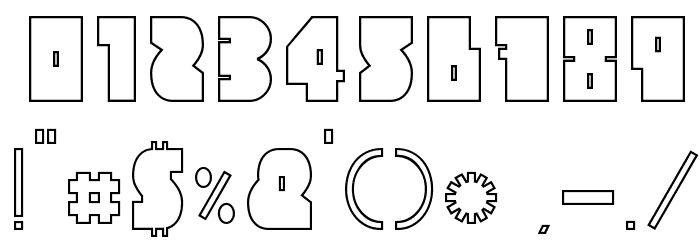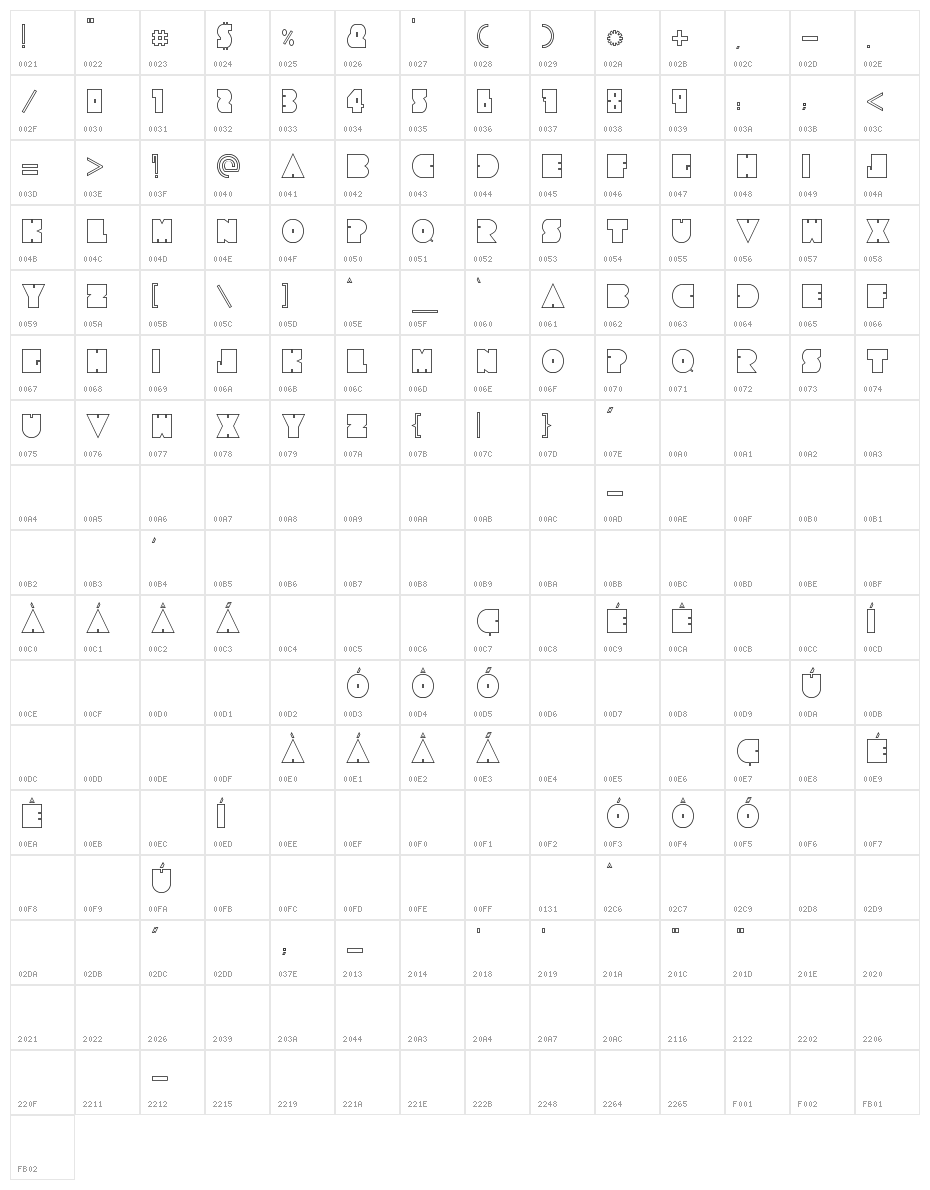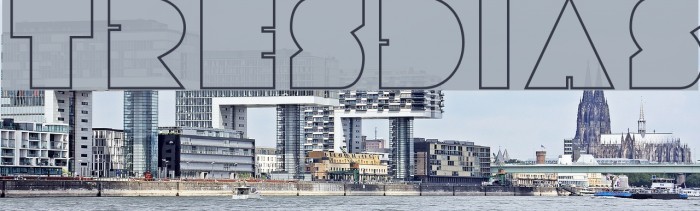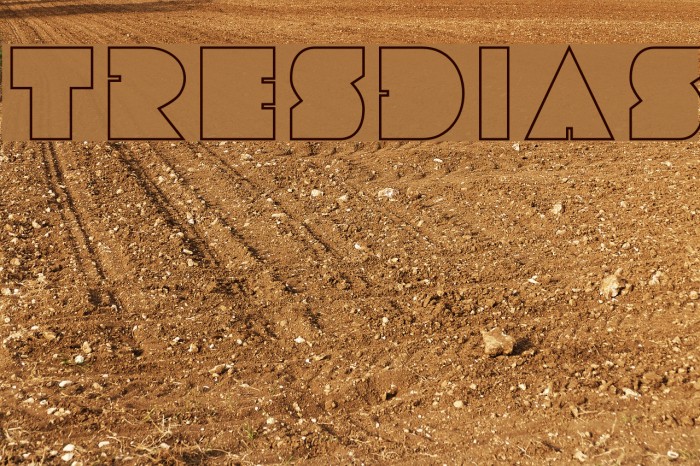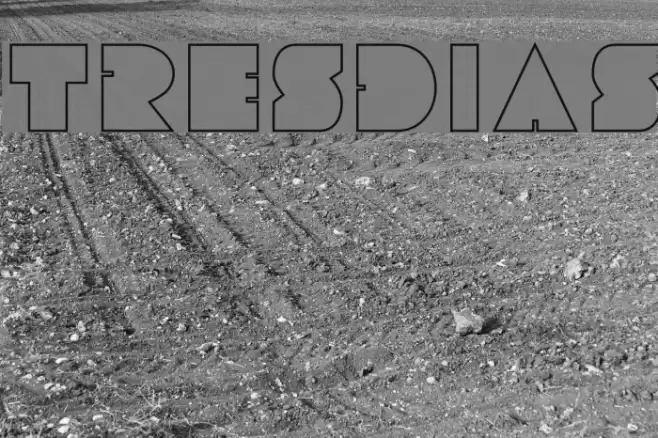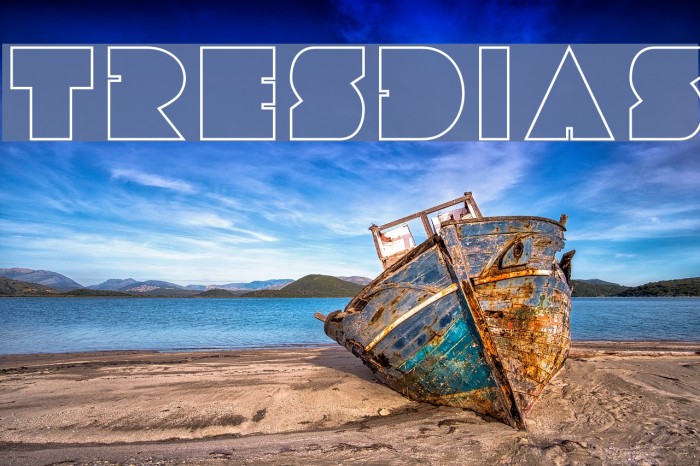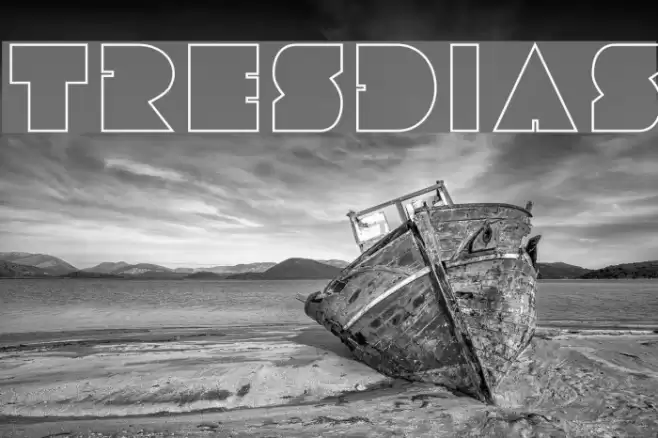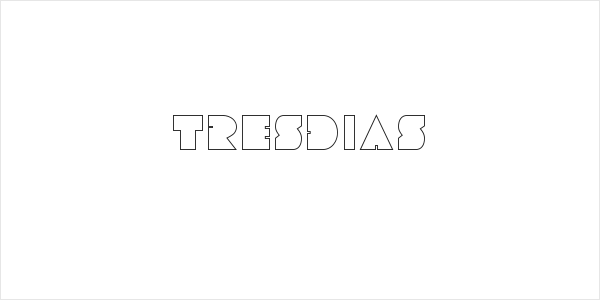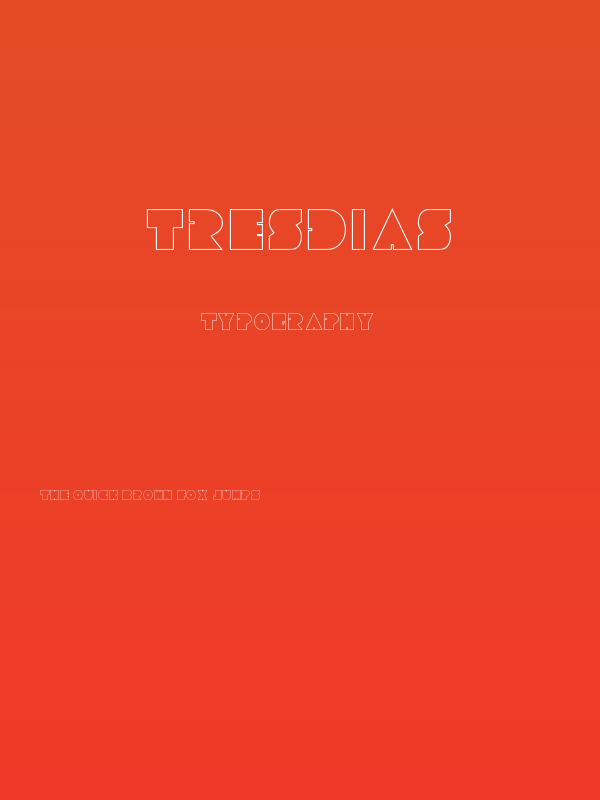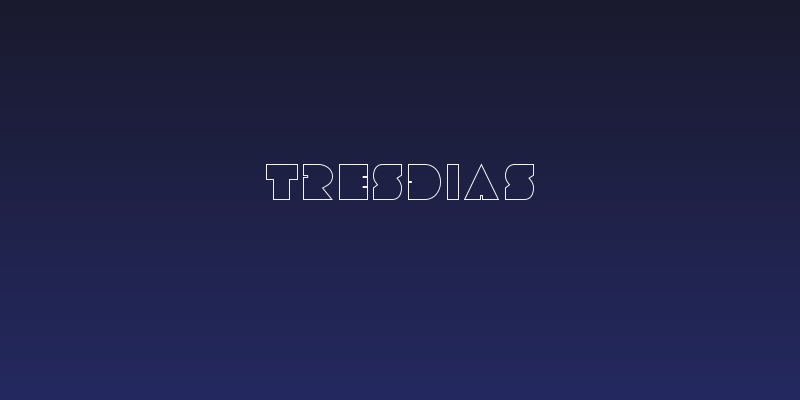
Tresdias Font
Tresdias Description
This font features a bold, geometric design with a strong emphasis on angular shapes and sharp edges. The characters are constructed with a consistent stroke width, creating a uniform and cohesive appearance. The uppercase letters are particularly striking, with their block-like forms and distinct cutouts that add a unique flair. The numerals and special characters follow the same geometric style, ensuring a harmonious look across all elements. This font's modern and edgy aesthetic makes it suitable for projects that require a bold statement.
| Proposed Projects | Ideal for branding, posters, headlines, and any design needing a modern, bold impact. |